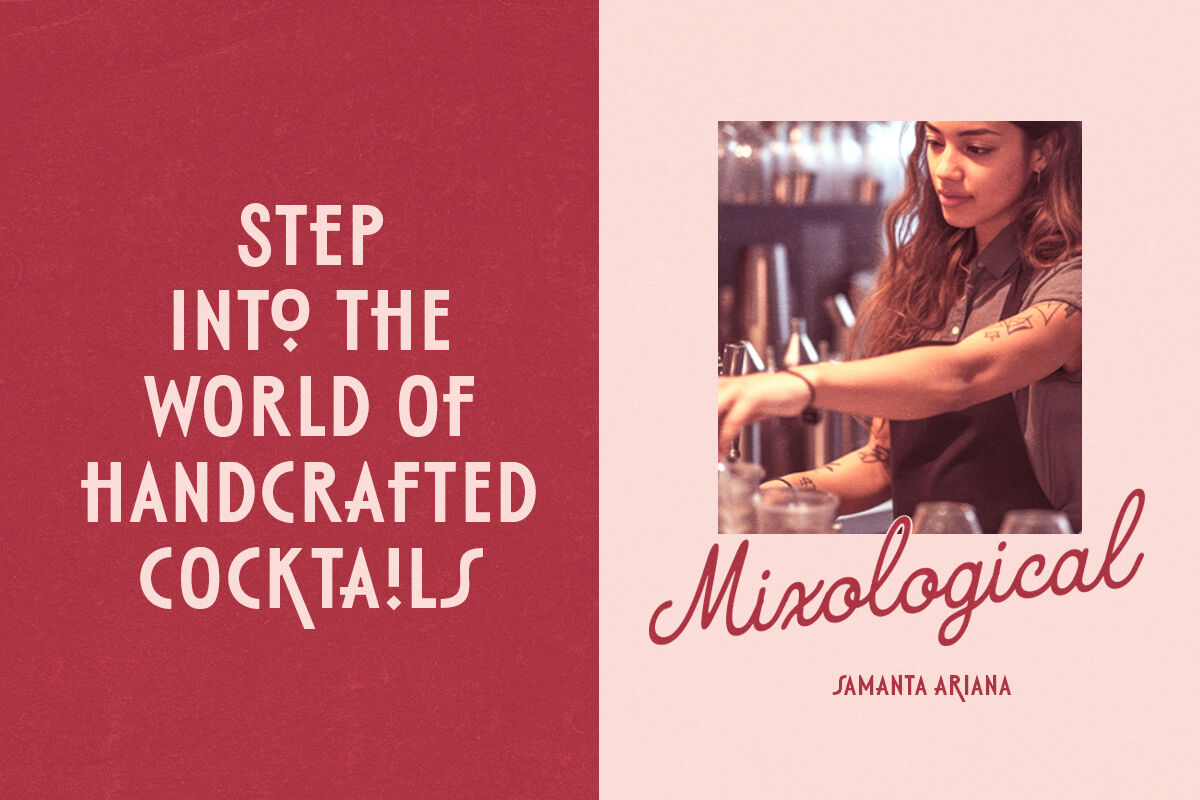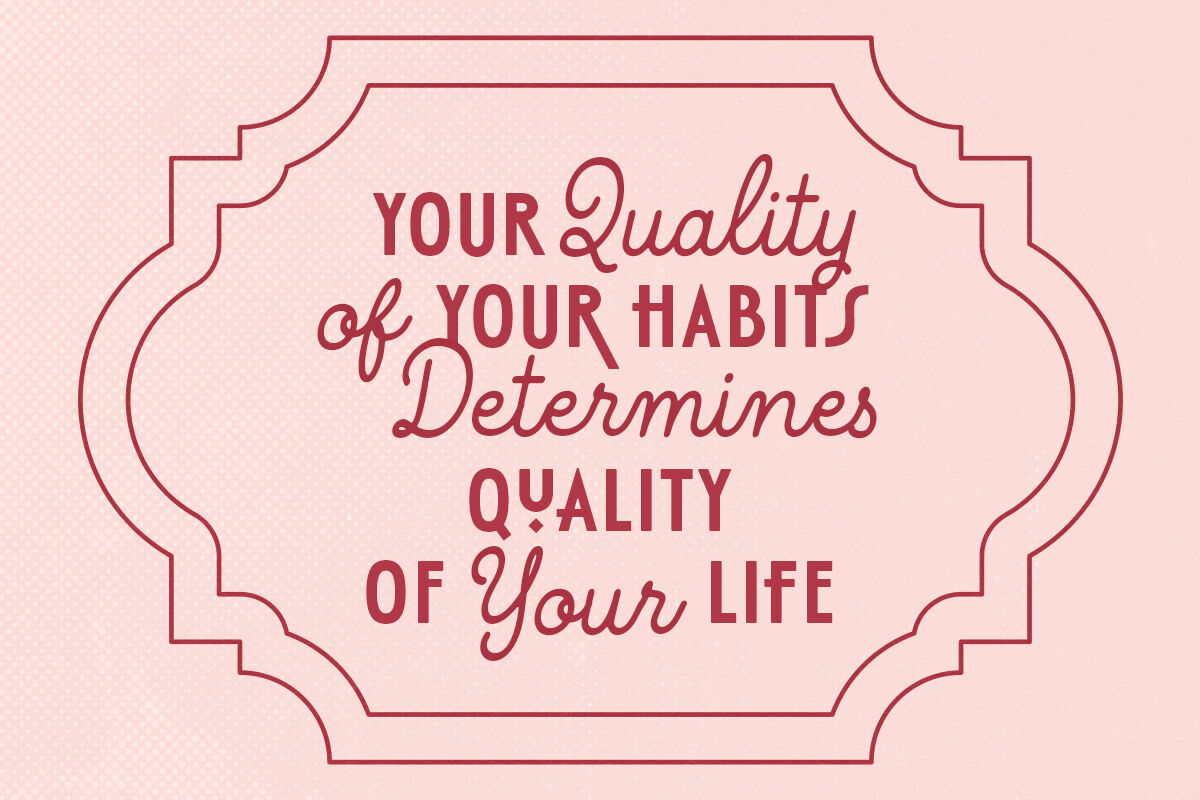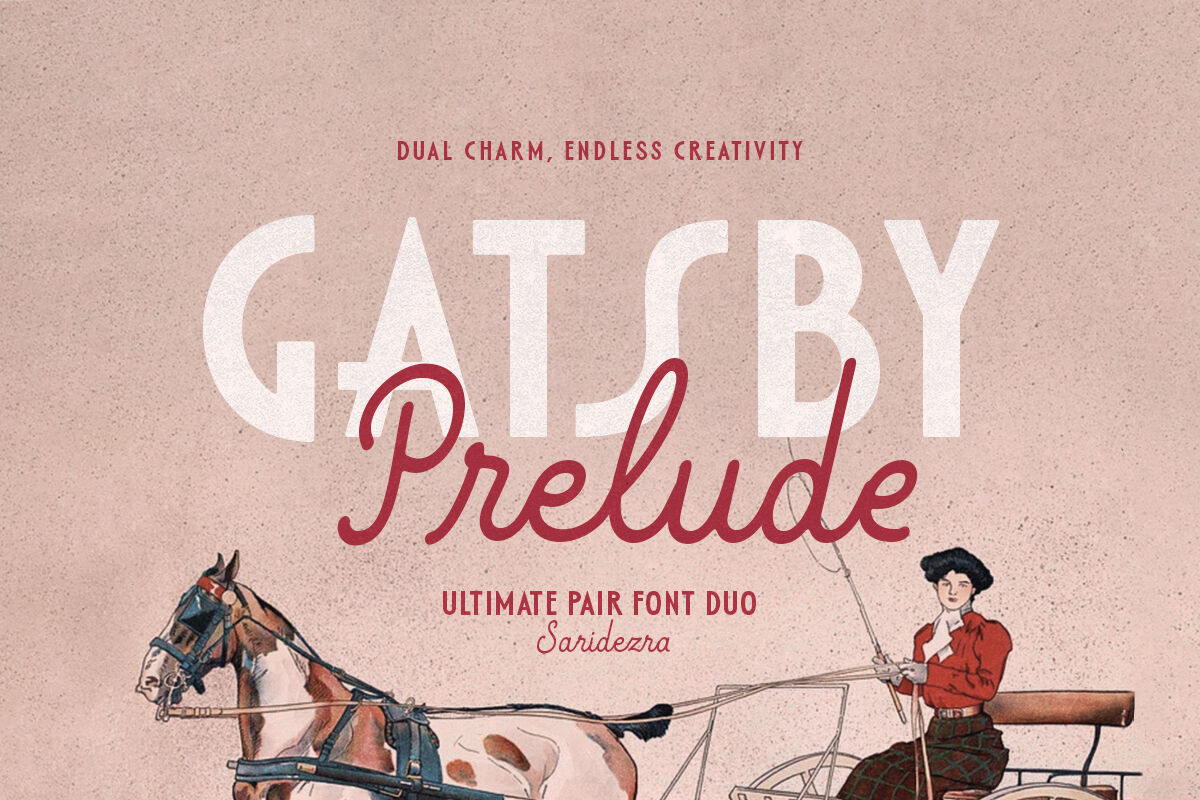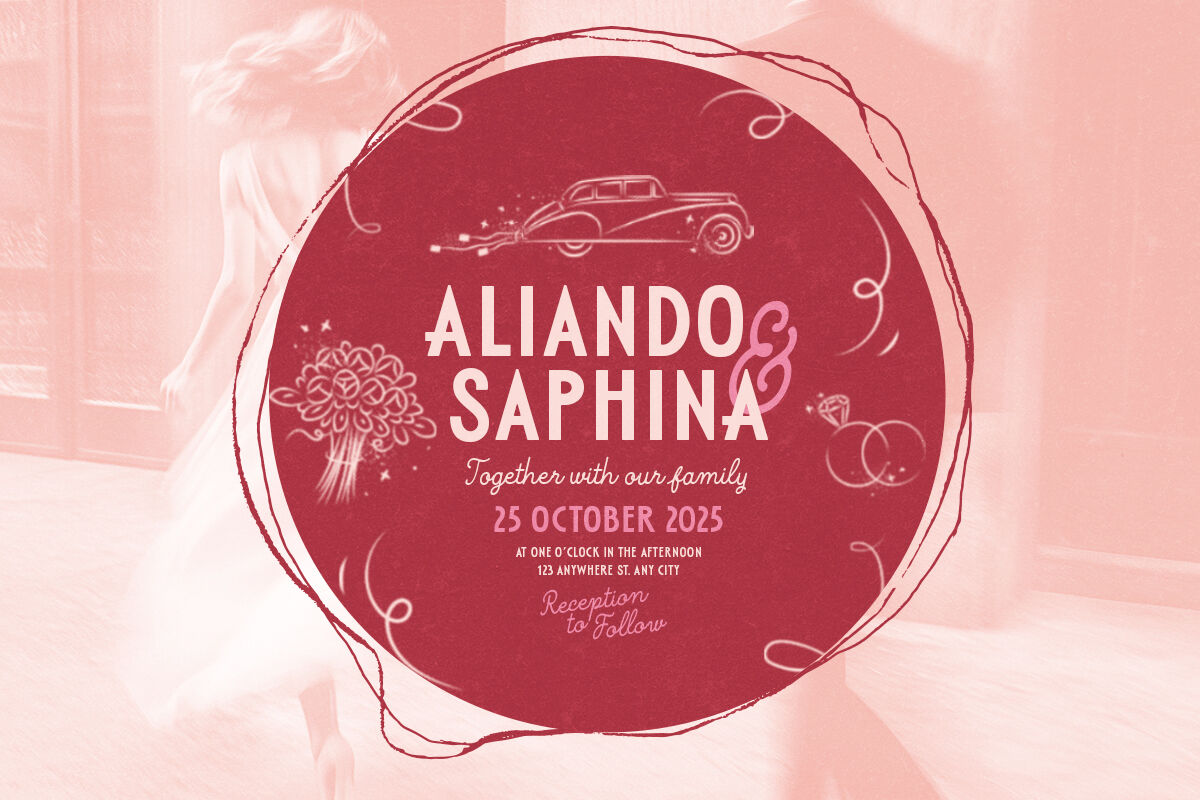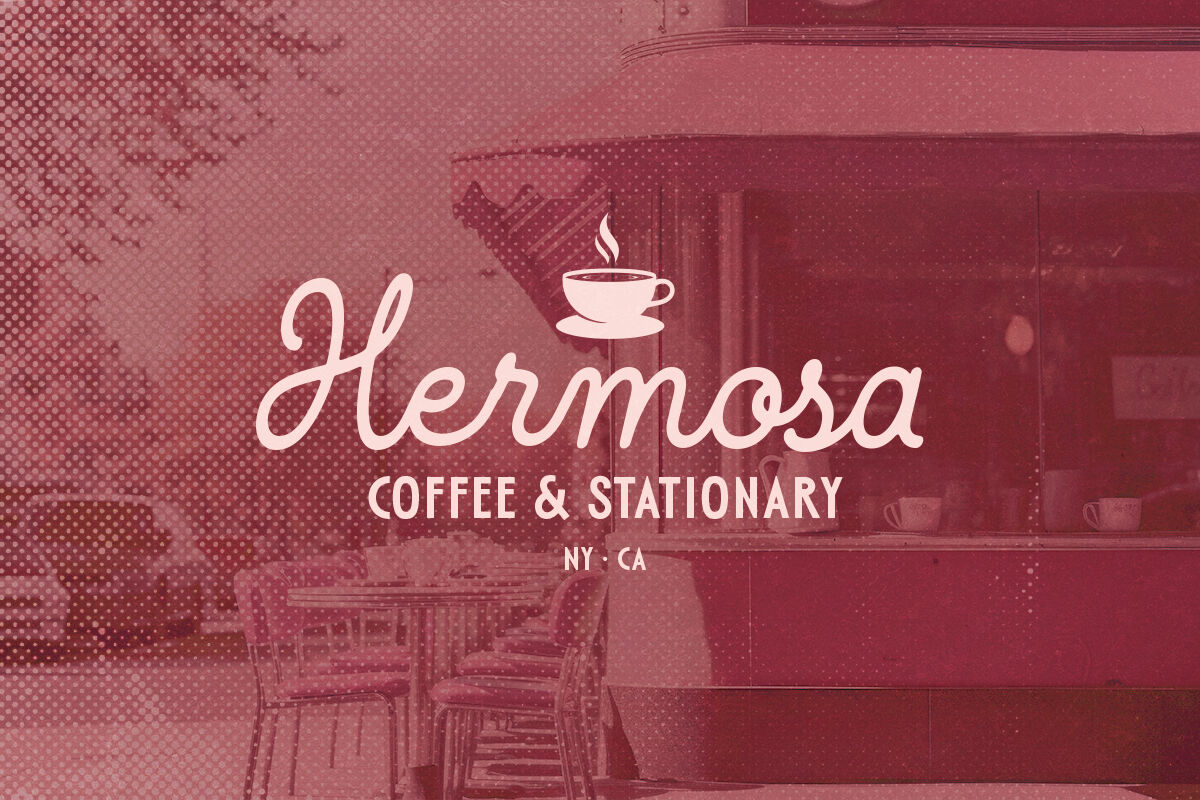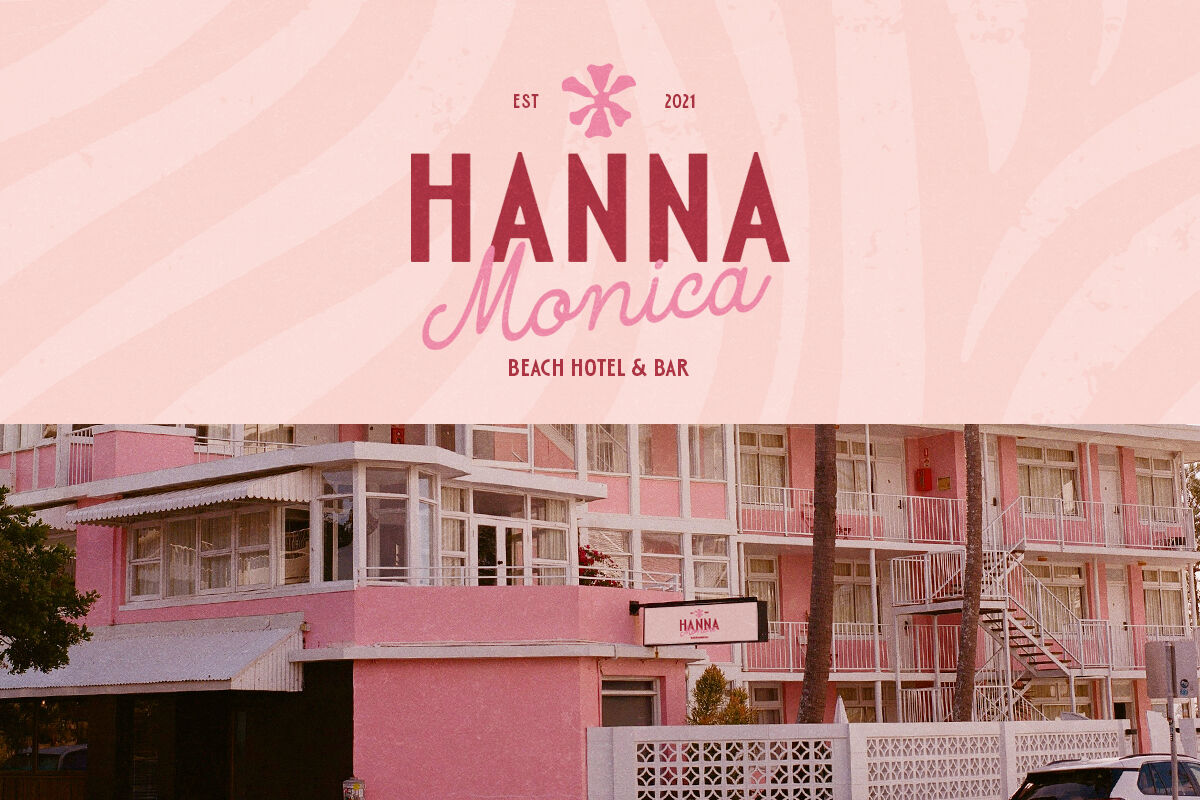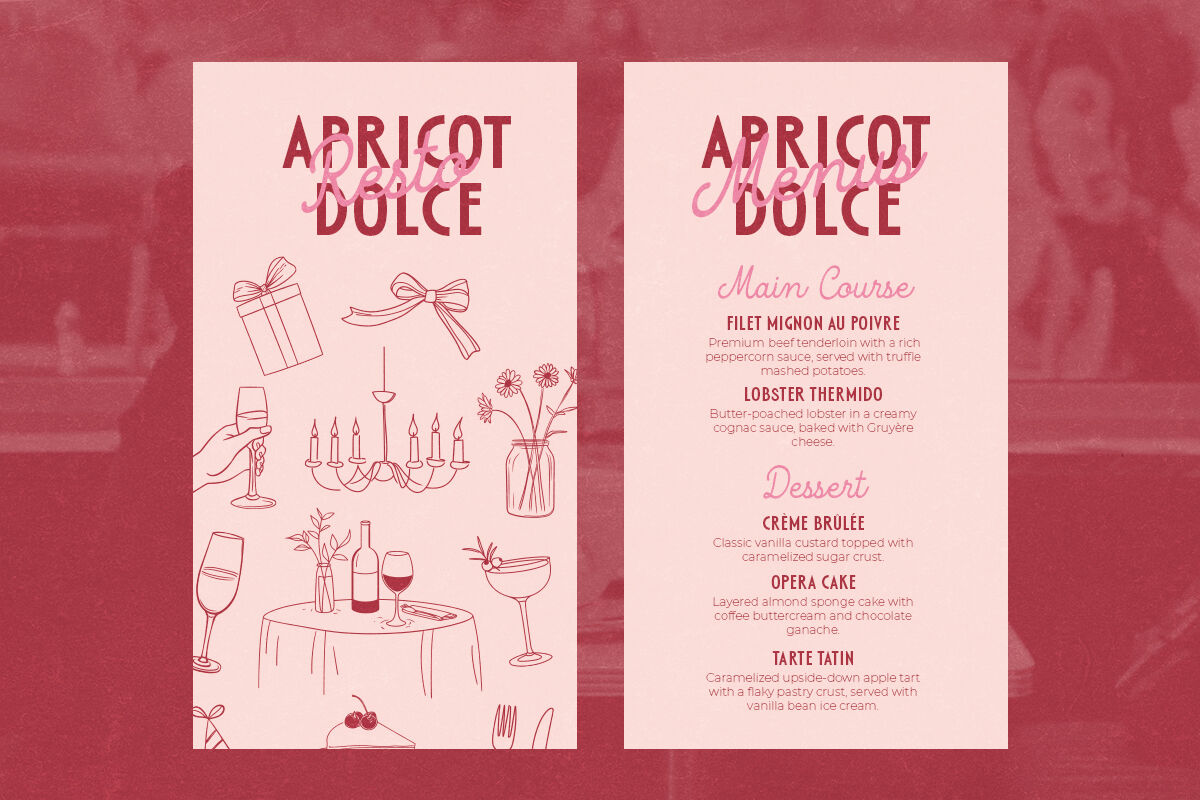
Gatsby Prelude - Art Deco Font Duo
Gatsby Prelude is a tall font duo with art deco sans and monoline script. You can use this font duo for any purposes from logotype to wedding invitations. This font also great for branding and quotes. With unique lowercase, you can combine the uppercase and lowercase of the sans to make your designs more stunning. The monoline script also include alternates that you can choose to match your project. Gatsby Prelude also support multi language.
Gatsby Prelude Sans
Gatsby Prelude Script